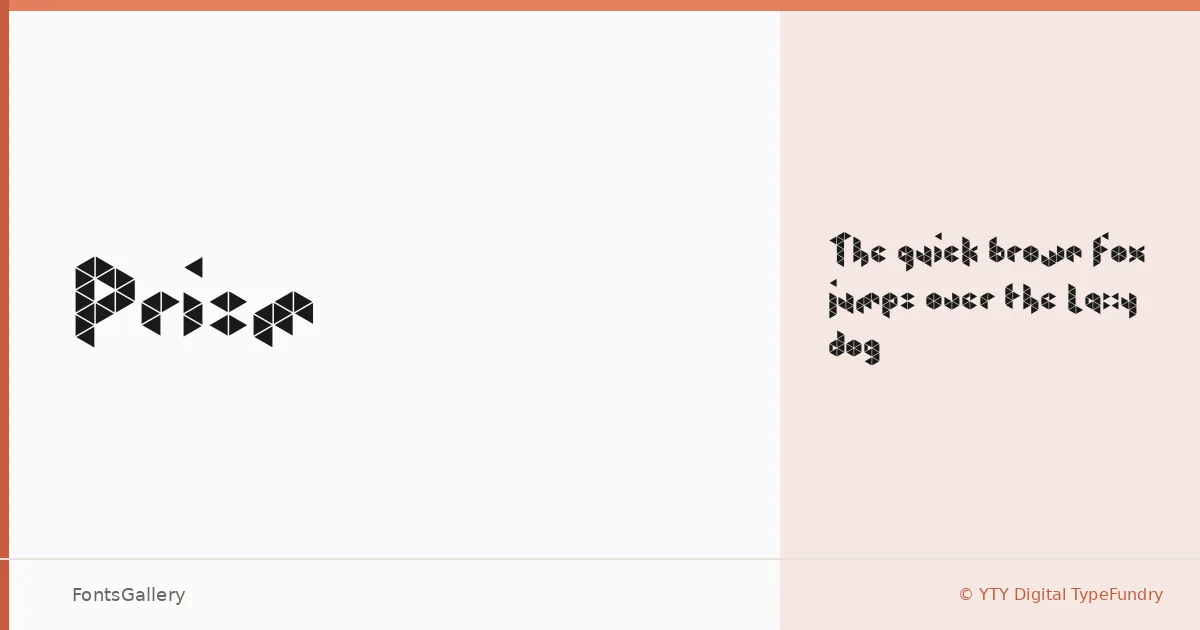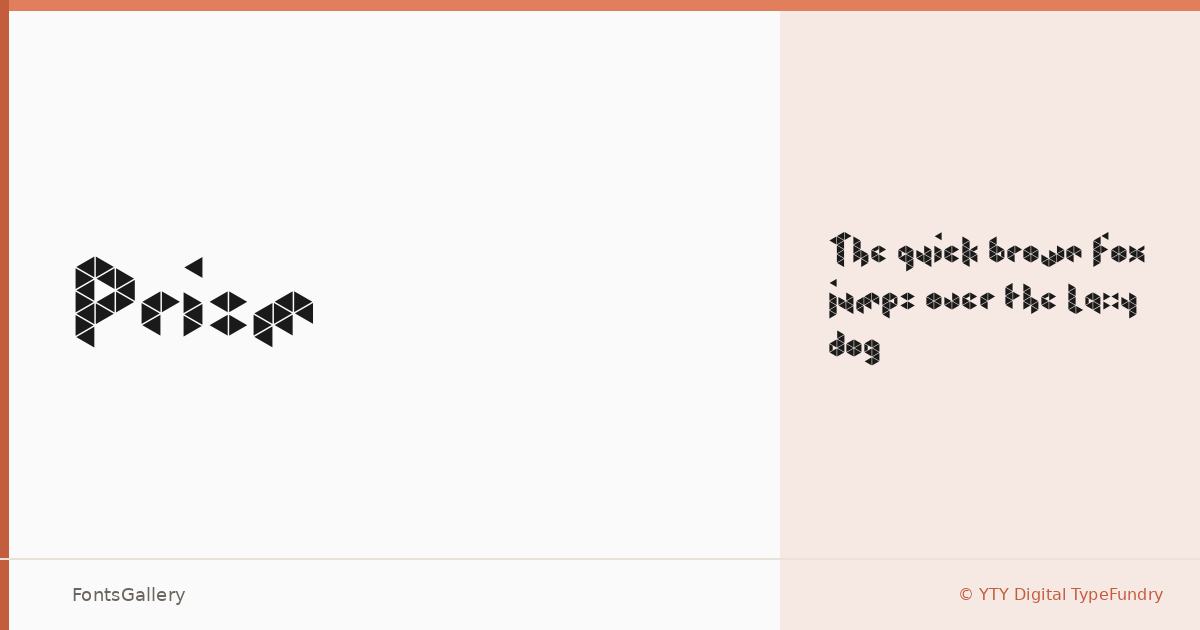
About Prism Font
There is something deliberately fractured about the letterforms here — a geometric decorative face from designer Tzu-yuan Yin and YTY Digital TypeFundry that feels as though each glyph has been cut and reassembled along sharp, refractive angles. The single Regular weight arrives in TTF format and covers both Latin and Cyrillic scripts.
Sitting squarely in the decorative category, the design leans futuristic and modern without losing a thread of playfulness — the kind of boldness that earns attention through structure rather than weight alone. The forms carry an angular, almost crystalline rhythm that reads confidently at display sizes, making the single cut work hard wherever graphic impact is the goal.
It is built for situations where the type is the visual — branding marks, poster headlines, logo lockups, social media graphics, and T-shirt design are all natural territory. For text beneath it, the neutrality of Helvetica or Josefin Sans grounds the composition, while Canela brings warmth as a contrasting serif; Asap and ABC Arizona offer additional options depending on how much contrast you want against those angular display forms.